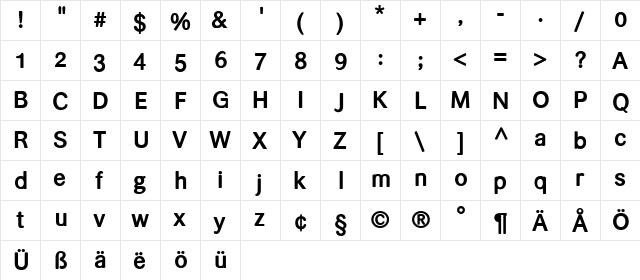
helvari Bold
| Foundry | loosy (fabian pfeifhofer) |
| Designer | loosy (fabian pfeifhofer) |
Design Context for helvari Typeface
helvari takes a measured approach to typography — its balanced proportions and neutral character make it a reliable workhorse for both digital and print work. Its bold stroke weight gives it real presence on the page.
Pro Tip: Pair helvari with a font of contrasting weight or personality to build a more expressive typographic hierarchy.